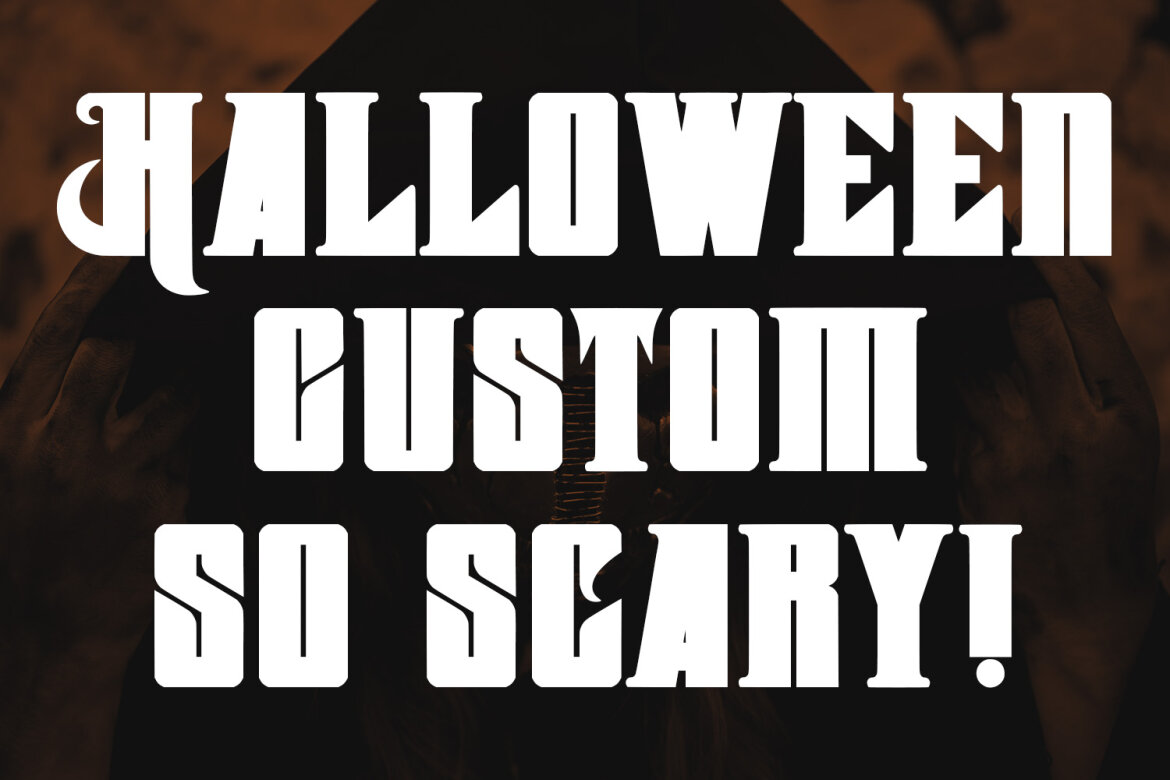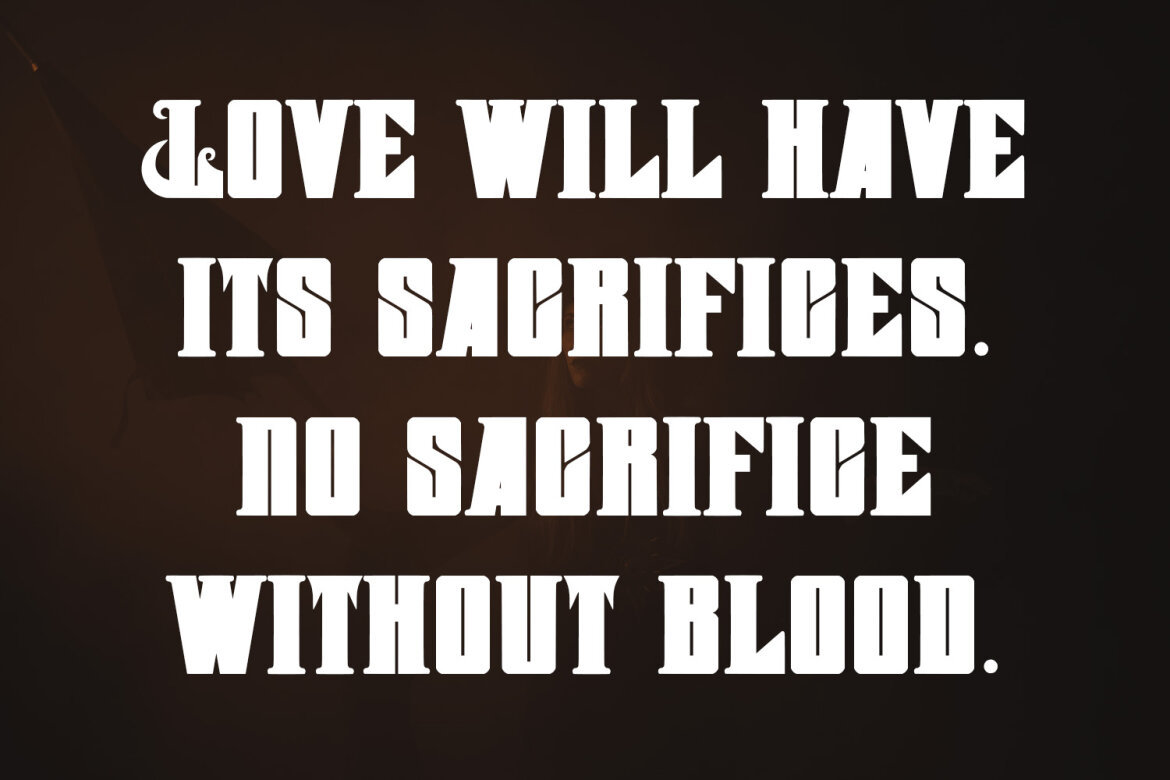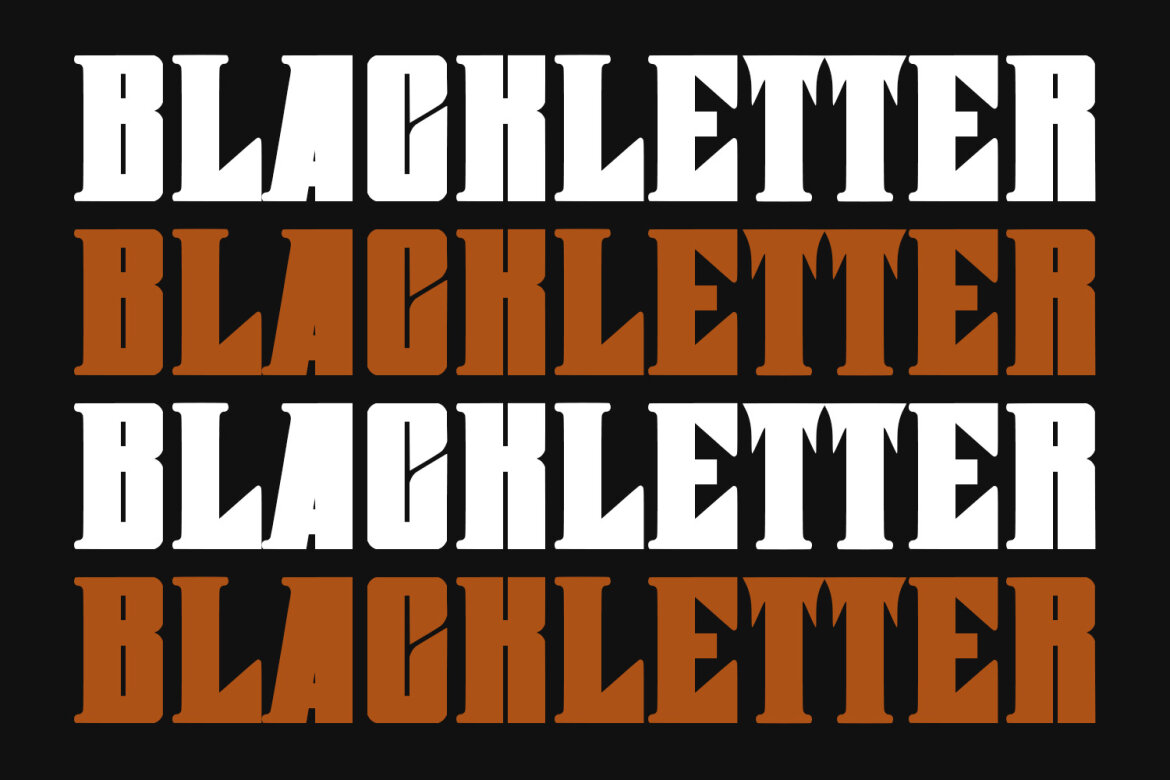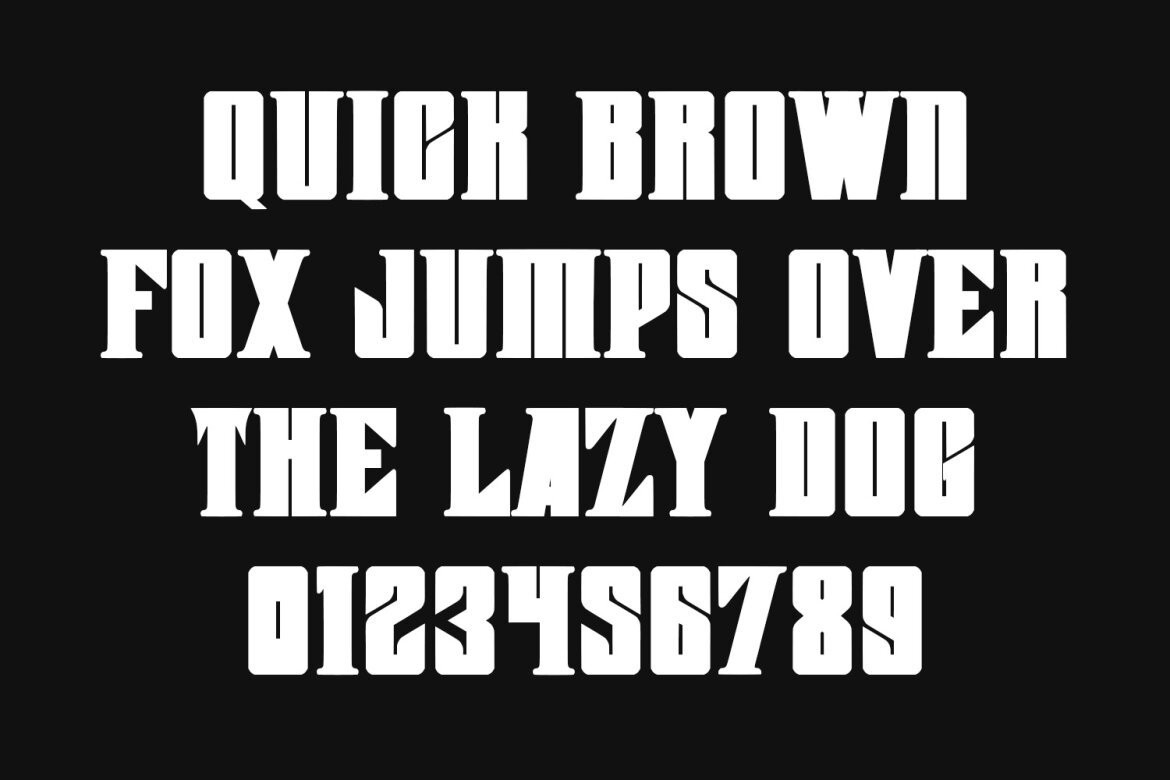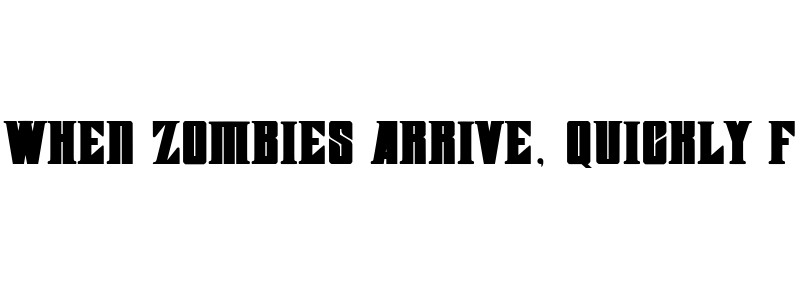
Rukest Blackletter FREE Font
Introducing Rukest Blackletter Display Font.
Rukest Blackletter Display Font is a handmade Modern Victorian handlettering, which is combining modern and classic typography with some awesome alternates. Yes we back to early 1800s, bring classic touch on this decade.